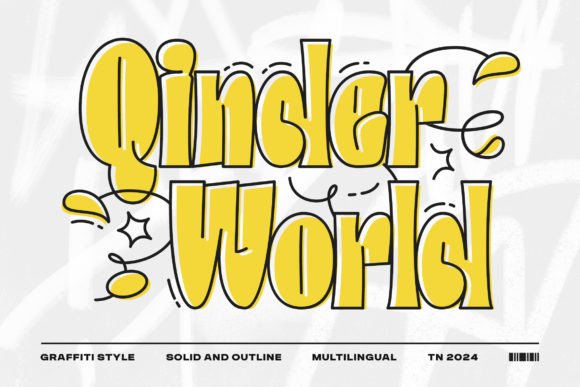
QinderWorld Brings Street Energy to Editorial Design
When I sat down to redesign the header and title pages for a lifestyle blog focused on urban creativity and street culture, I knew I needed a typeface that could carry the energy of the content without overwhelming the layout. The blog had always been about raw, authentic city life — art, music, fashion, and the people who shape them. But the existing typography felt too polished, too clean. It lacked the rhythm and personality of the streets. That is when I discovered QinderWorld, a Modern Graffiti Display Font that brought the visual language of street art directly into my editorial toolkit. The font felt alive. It had texture, movement, and a playful edge that instantly connected with the audience I was trying to reach. For a publication that prides itself on being bold and unfiltered, QinderWorld was exactly the creative font I had been searching for.
What struck me first about this typeface was how it balances controlled graffiti aesthetics with readable letterforms. It is not a chaotic wildstyle font that sacrifices clarity for flair. Instead, QinderWorld offers a refined take on street-inspired typography, making it suitable for everything from blog headers to magazine cover titles. The letters carry a hand-painted, spray-can warmth that feels personal and authentic, yet the overall spacing and proportions remain deliberate and easy to work with. For any editorial designer looking to infuse a publication with youthful energy and urban character, this display font provides an excellent starting point.
Using QinderWorld in Blog Headers and Magazine Cover Titles
QinderWorld shines brightest when used for titles and headings that need to grab attention immediately. In my blog redesign, I placed it at the top of every article page and on the main site header. The font instantly communicated the publication’s identity: modern, creative, and unapologetically urban. For a magazine cover or a digital publication header, QinderWorld works exceptionally well because its graffiti roots give it a handcrafted feel that stands out in a sea of sterile sans serif fonts. I found that the font creates a strong visual anchor, drawing the reader’s eye before they even read a single word of the body copy. It transformed the blog from a standard content site into a visual statement that felt more like a zine or a street art magazine. The energy of the typeface encouraged me to experiment with layout and color, pairing it with bold backgrounds and white space to let the letterforms breathe. QinderWorld is not a font that fades into the background — it demands to be seen, and that is exactly what you want from a headline typeface in editorial design.
QinderWorld for Street Urban Culture Branding and Kid-Friendly Graphics
One of the most versatile aspects of QinderWorld is its dual personality. On one hand, it perfectly captures the spirit of street urban culture branding — think skateboard decks, music festival posters, sneaker campaigns, and independent magazine covers. On the other hand, its playful, rounded letterforms give it a natural appeal for kid fun game font applications. I used it in a set of printable activity sheets for a community arts event, and the font brought a sense of joy and creativity that both children and adults responded to. It didn’t feel childish; it felt inclusive and energetic. That is a rare quality in a typeface. Whether you are designing a flyer for a youth workshop, a logo for a streetwear brand, or the title page of a children’s creative workbook, QinderWorld adapts without losing its core identity. The graffiti inspiration never overwhelms the readability, which makes it a practical choice for projects that need to appeal to a wide audience — from street culture enthusiasts to parents looking for engaging educational materials. For anyone working in creative font design projects that sit at the intersection of urban cool and family-friendly fun, this font offers a bridge between those worlds.
Pairing QinderWorld with Serif Fonts for Balanced Editorial Layouts
A display font like QinderWorld needs a thoughtful companion for body copy and supporting text. In my editorial layout, I paired it with a classic serif font for article text and captions. The contrast between the hand-painted graffiti style of QinderWorld and the clean, grounded structure of a serif font created a beautiful tension on the page. The serif font provided a quiet, readable foundation, while QinderWorld brought excitement and personality to every heading and pull quote. For longer articles, I found that the serif body copy kept readers comfortable and focused, while the graffiti-infused titles broke up the text and signaled new sections with visual drama. This pairing also works well for ebook covers and newsletter graphics. I tested it in a mock recipe ebook layout, using QinderWorld for the chapter titles and recipe names, and a traditional serif for the ingredient lists and instructions. The result was a publication that felt both approachable and design-forward. If you prefer a more modern look, pairing QinderWorld with a clean sans serif font for subheadings and navigation is equally effective. The key is to let QinderWorld lead the visual story while supporting body fonts do the heavy lifting for extended reading. I always recommend testing font pairings in a full layout — title, subtitle, pull quote, body text, captions — to see how the hierarchy holds up across pages. In my case, the serif pairing gave the blog a polished, editorial feel that still honored the street art roots of the display font.
QinderWorld for Ebook Covers, Newsletter Graphics, and Printable Guides
When I moved the blog’s content into a digital guide format, I reached for QinderWorld again. The font worked beautifully on the ebook cover, where its bold graffiti style made the title pop against a dark photographic background. For newsletter graphics, I used it in the header banner and for featured article titles. The font maintained its impact even at smaller sizes in social media preview images and email headers. That consistency across formats is essential for independent content brands that publish across multiple platforms. I also tested QinderWorld in a printable wedding guide for a couple who wanted a modern, urban-inspired theme. The font added a fresh, unexpected twist to the vows section and the schedule of events. It proved that graffiti-inspired typography can work in sophisticated contexts when paired with the right colors and layout. For printable planners, coaching workbooks, and course PDFs, QinderWorld brings a sense of play and possibility to titles and section headers. It makes the material feel less like a textbook and more like a creative companion. If you are a digital product creator or a newsletter writer looking to refresh your visual identity, this font offers a distinctive voice that helps your content stand out in crowded inboxes and online stores. The commercial font licensing for QinderWorld also covers most digital and print projects, which gives you peace of mind when using it in paid products or client work.
Readability and Practical Tips for Using QinderWorld in Editorial Projects
Because QinderWorld is a display font, it is best reserved for short, impactful text: titles, subtitles, pull quotes, chapter openers, section headings, and decorative accents. I found it performed beautifully at sizes above 36 points in print and above 48 pixels on screen. For mobile layouts, I used it sparingly — typically only for the main page header and the most prominent headings — and relied on cleaner fonts for navigation and body copy to ensure readability on small screens. The font includes helpful alternates and ligatures that add personality without sacrificing legibility, and I made sure to test those in my layout to get the most expressive letter combinations. When exporting to PDF for print or digital distribution, I checked the font embedding settings to preserve the design integrity. For commercial projects, always verify the font license covers your specific use case — whether that is a client publication, a paid newsletter template, or a downloadable printable. QinderWorld supports multilingual characters, so it works well for international audiences as well. A final practical note: because the graffiti style is so distinctive, I recommend using it as the hero element in your layout and keeping other design elements minimal. Let the font do the talking. In my blog redesign, that approach transformed the reading experience from ordinary to memorable, and it continues to attract the kind of engaged audience that independent publishers and creators depend on.